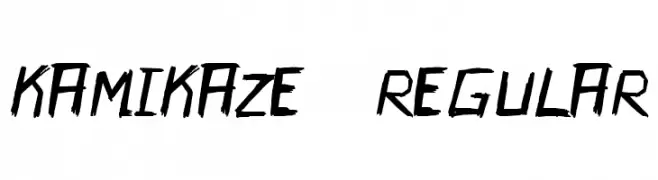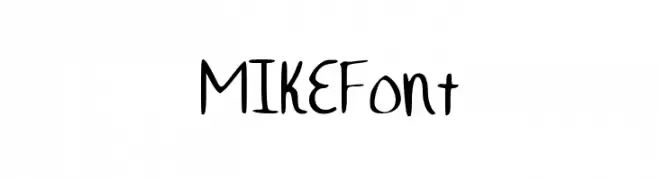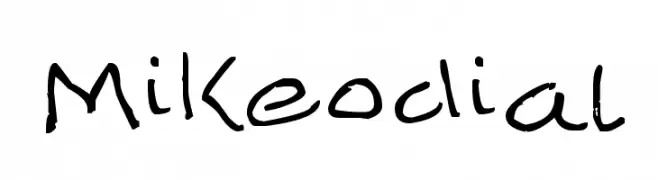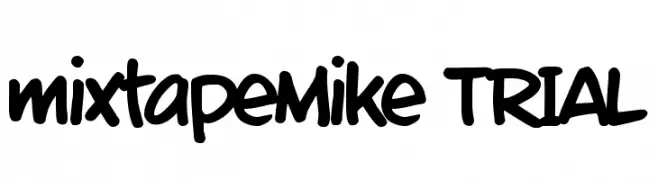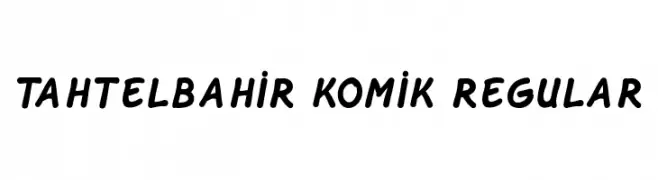
A bold, playful handwritten font with rounded, graffiti-like letterforms.
A bold, angular font with a dynamic, brush-like texture.
A playful, hand-drawn font with bold, rounded characters and a dynamic slant.
A playful, handwritten font with rounded, casual letterforms.
A playful, hand-drawn font with a casual and informal style.